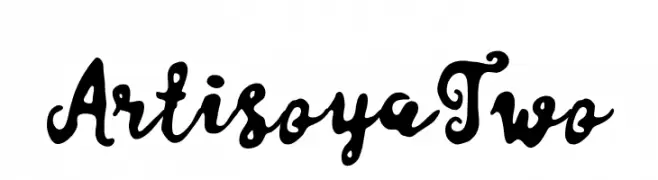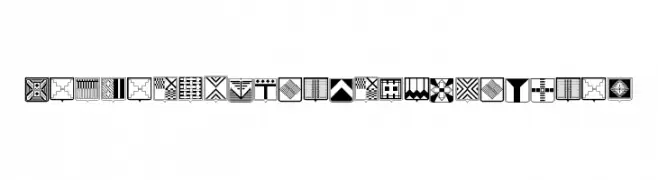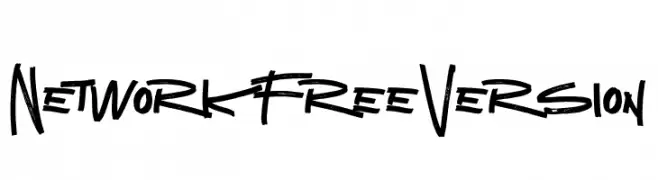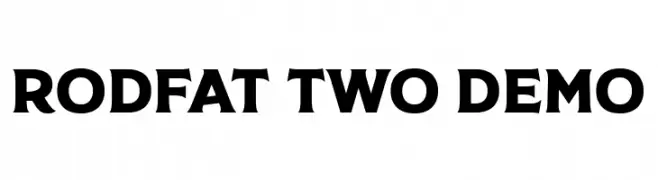
A modern, rounded font with clean lines and a friendly appearance.
A modern, rounded, and slightly italicized font with a smooth, flowing style.
A bold, dynamic font with a strong, modern presence.
A bold, playful script font with fluid, interconnected strokes.
A display font of illustrated fantasy shield icons.
A display font made of illustrated house and building silhouettes.
A whimsical, hand-drawn font with irregular, playful strokes.
A bold, energetic font with dynamic brush strokes and irregular letterforms.
A graceful, cursive font with interconnected letters and a natural handwriting style.
A fluid, cursive font with a handwritten style and interconnected letters.